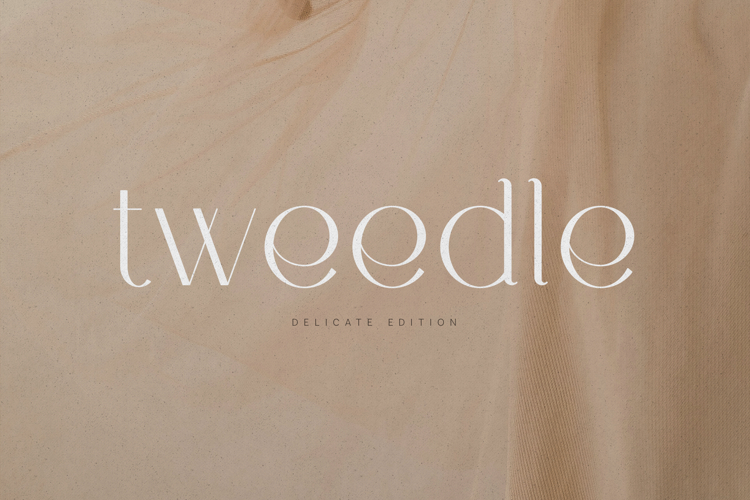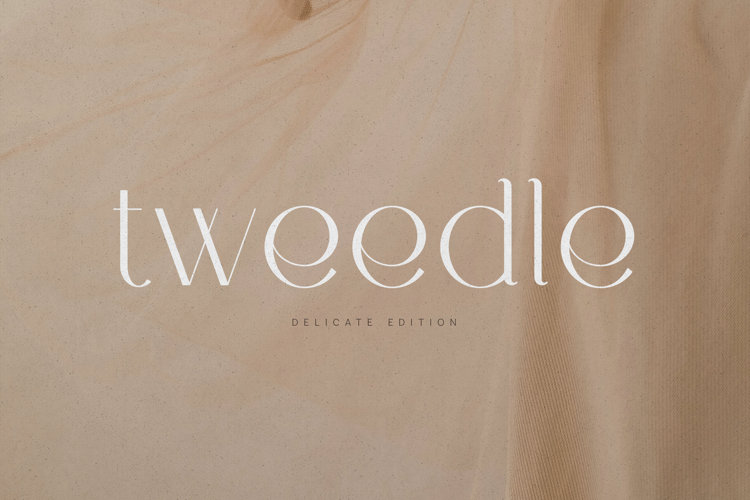
Tweedle Delicate Elegant Serif Font
Tweedle Delicate is a refined serif typeface designed with graceful curves and soft contrast. Its thin strokes and elegant proportions create a timeless, feminine, and sophisticated aesthetic perfect for luxury branding, fashion editorials, wedding invitations, and high-end packaging.
With beautifully crafted uppercase and lowercase letters, multilingual support, numerals, and essential punctuation, Tweedle Delicate delivers a clean yet expressive presence. The subtle details and smooth flow make it ideal for logos, magazines, beauty brands, and modern minimal design projects.
Whether used in large headlines or delicate body text, this typeface brings elegance and softness to every composition.